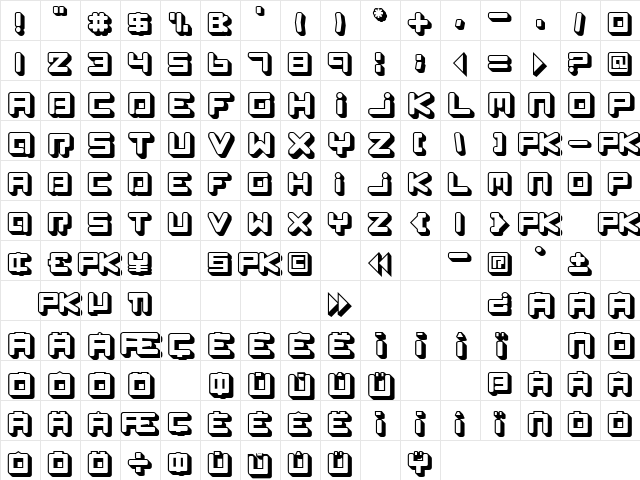
Complete Spleen Machine Az Regular glyph index. Displaying only characters natively supported by Spleen Machine Az Regular font.
Spleen Machine Az is a composed and adaptable typeface that performs quietly and consistently across a wide range of design contexts.